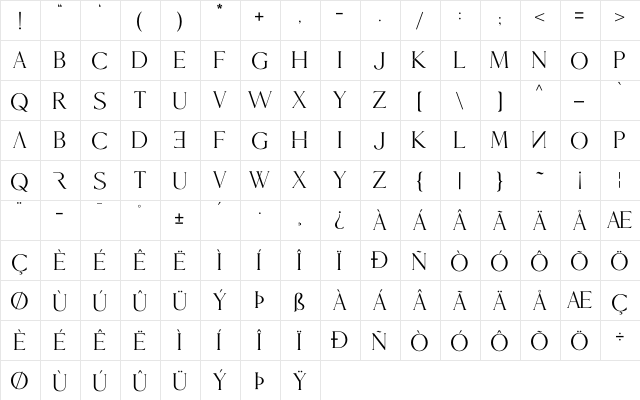
Mories Display Regular
Design Context for Mories Display Typeface
Mories Display brings ornamental detail and strong personality to headlines and identities, where visual impact matters more than quiet functionality.
Font Pairing: Pair with a clean neutral sans-serif for body copy to let Mories Display's character lead without overwhelming the composition.
Pro Tip: Use Mories Display exclusively at display sizes — it was designed to be seen, not read at length. Let a neutral companion handle body copy.